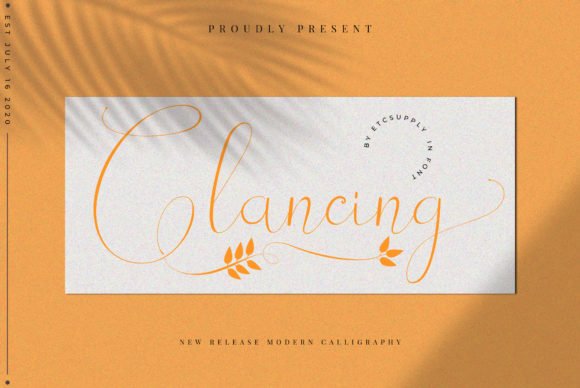
Discover the Timeless Elegance of Glancing Font
Have you ever been browsing through design inspiration boards, and suddenly, you stumble upon a beautiful wedding invitation that stops you in your tracks? The elegant script, the flowing curves, and the perfect balance of style and sophistication – it’s a moment that sparks creativity and makes you want to dive into the world of calligraphy. For designers like us, it’s moments like these that remind us why we love our craft.
Introducing Glancing Font, a modern calligraphy font that’s designed to add a touch of elegance to any design project. Perfect for wedding invitations, business cards, logos, and branding designs, Glancing Font is a versatile and sophisticated font that’s sure to impress. Whether you’re a seasoned designer or just starting out, this font is a valuable addition to your toolkit, offering endless possibilities for creative expression.
Key Features of Glancing Font
- Size: Glancing Font is designed to be used at large sizes, typically between 24pt and 48pt, to emphasize the glancing effect.
- Resolution: Glancing Font is optimized for high-resolution displays, with a resolution of 300 DPI or higher, to ensure crisp and clear rendering.
- Unique Characteristics: Glancing Font features a distinctive glancing effect, where the letters appear to be glancing off the surface, creating a sense of depth and dimensionality.
- Legibility: Despite its unique design, Glancing Font remains highly legible, even at large sizes, making it suitable for use in a variety of contexts, from signage to digital displays.
- Flexibility: Glancing Font can be used in a range of settings, from formal to informal, and is suitable for use in both print and digital media.
Glancing Font Review
As a designer, I’ve had the chance to work with Glancing Font, and I must say it’s been an interesting experience. Here’s my honest review:
- Unique Character: Glancing Font has a distinct character that sets it apart from other fonts. Its quirky feel can add a touch of personality to any design.
- Legibility: Despite its unconventional design, Glancing Font is surprisingly legible, making it suitable for body text.
- Customization: The font offers a range of styles and weights, giving designers plenty of options for customization.
- Readability at Small Sizes: While Glancing Font is legible, it can become difficult to read at small sizes, which may limit its use in certain contexts.
- Lack of Consistency: The font’s irregularities can sometimes make it feel inconsistent, which may be jarring for some designers.
- Not Suitable for Headlines: Due to its unconventional design, Glancing Font may not be the best choice for headlines, which require clarity and emphasis.
Glancing Font is a font that’s best suited for designers who want to add a touch of whimsy to their projects. While it has its limitations, it can be a great choice for body text or smaller designs where legibility is less of a concern. However, it may not be the best fit for projects that require clear, concise communication.
Tips for Getting the Most Out of Glancing Font
For best results, use Glancing Font in combination with bold or italic styles to create visual interest.
Experiment with different font sizes and colors to emphasize key points or create a cohesive visual identity.
Glancing Font is ideal for:
- Call-to-actions and buttons
Alternatives to Glancing Font for Designers
Open Sans is a clean, modern sans-serif font ideal for digital products, websites, and mobile apps. It’s highly legible and works well for body text, making it a great alternative to Glancing Font for large blocks of text.
Compared to Glancing Font, Open Sans has a more neutral and timeless feel, while Glancing Font has a more playful and creative vibe. Use Open Sans when you need a clean and professional look.
What is the recommended font size and line height for Glancing Font?
The recommended font size for Glancing Font is between 12-16 pixels, depending on the screen resolution and reading distance. For optimal readability, we recommend a line height of at least 1.2-1.5 times the font size. This will ensure that the text is easy to read and understand, even on smaller screens.